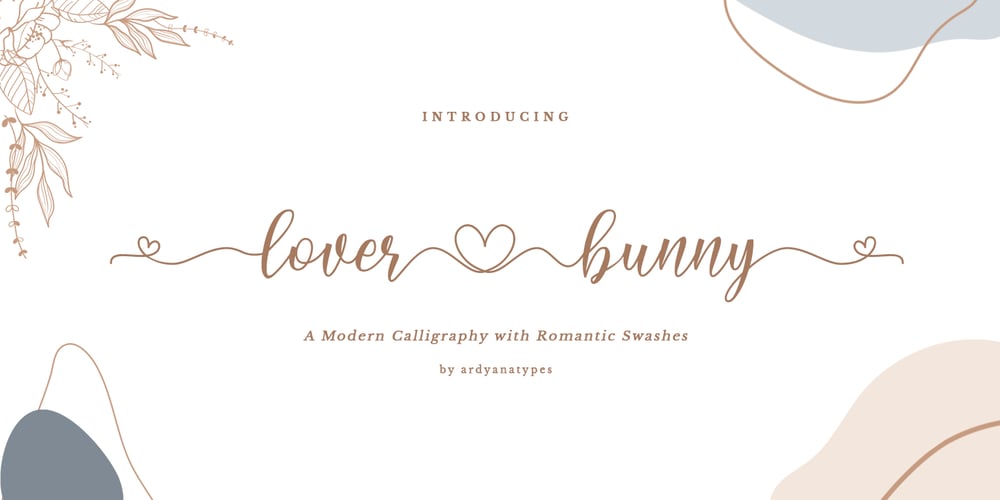
Lover Bunny
Lover Bunny font
Lover Bunny Font Family was designed by Ardyana Putra and published by Ardyanatypes. Lover Bunny contains 1 styles and family package options. Lover Bunny is a font created with a special touch to give it a beautiful and attractive appearance. The modern type of calligraphy is also included in Lover Bunny, it is very suitable if applied to every design such as poster designs, signatures, logos, quotes, album covers, business cards, product designs, and many other design projects.